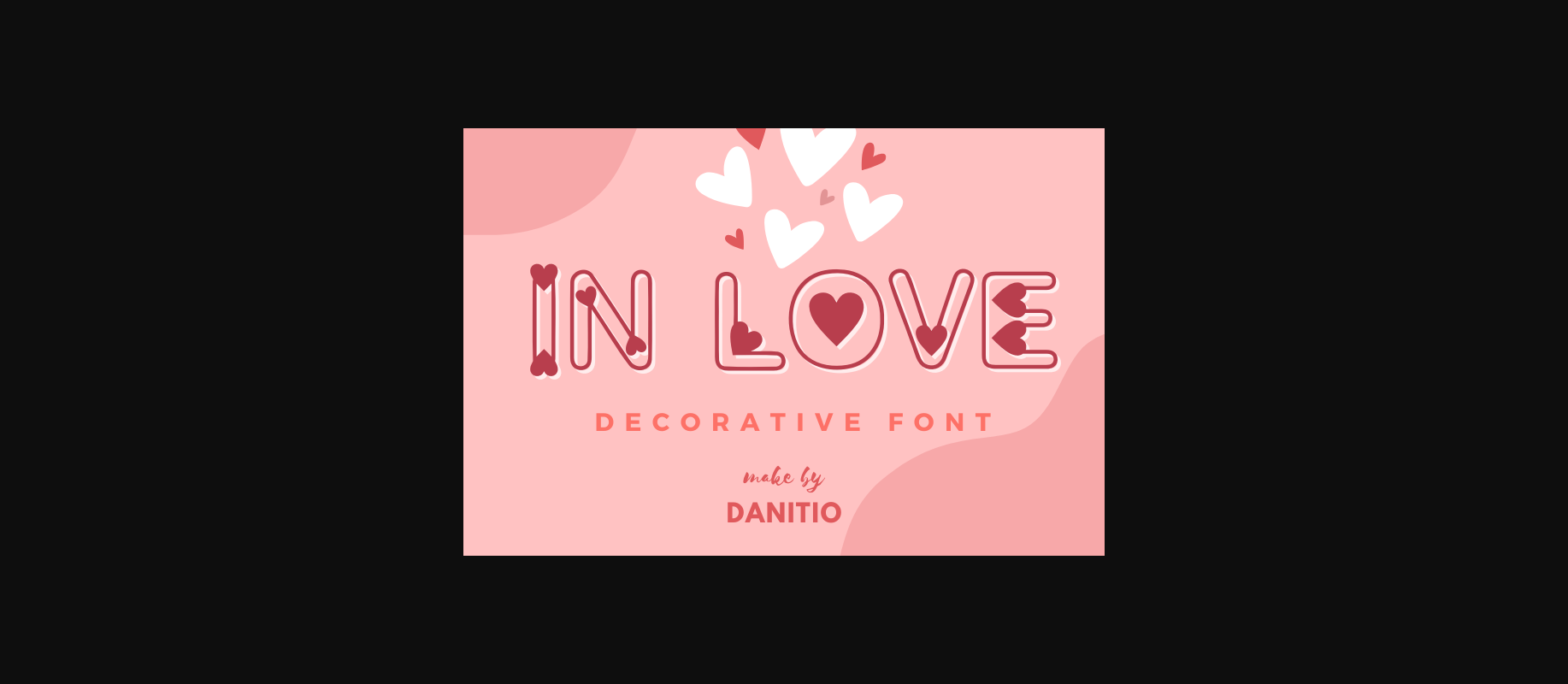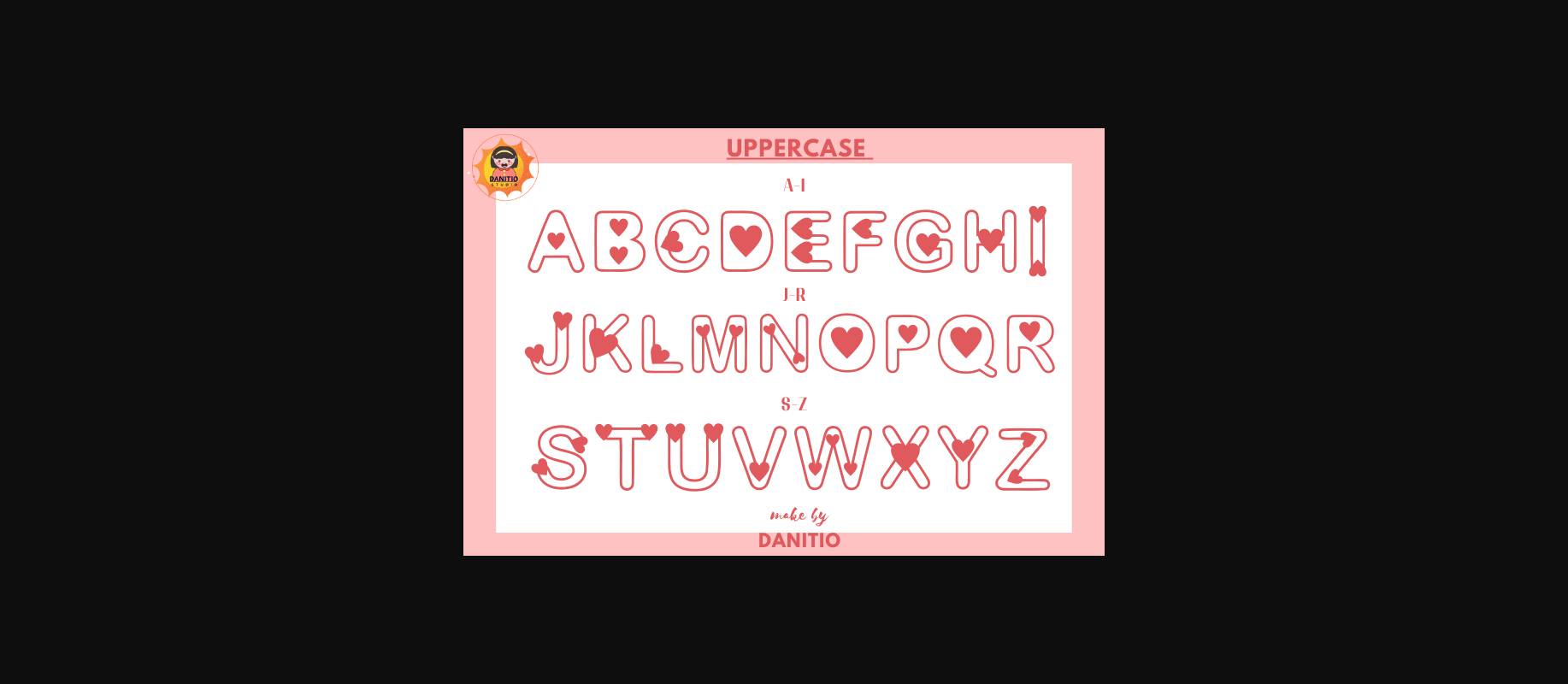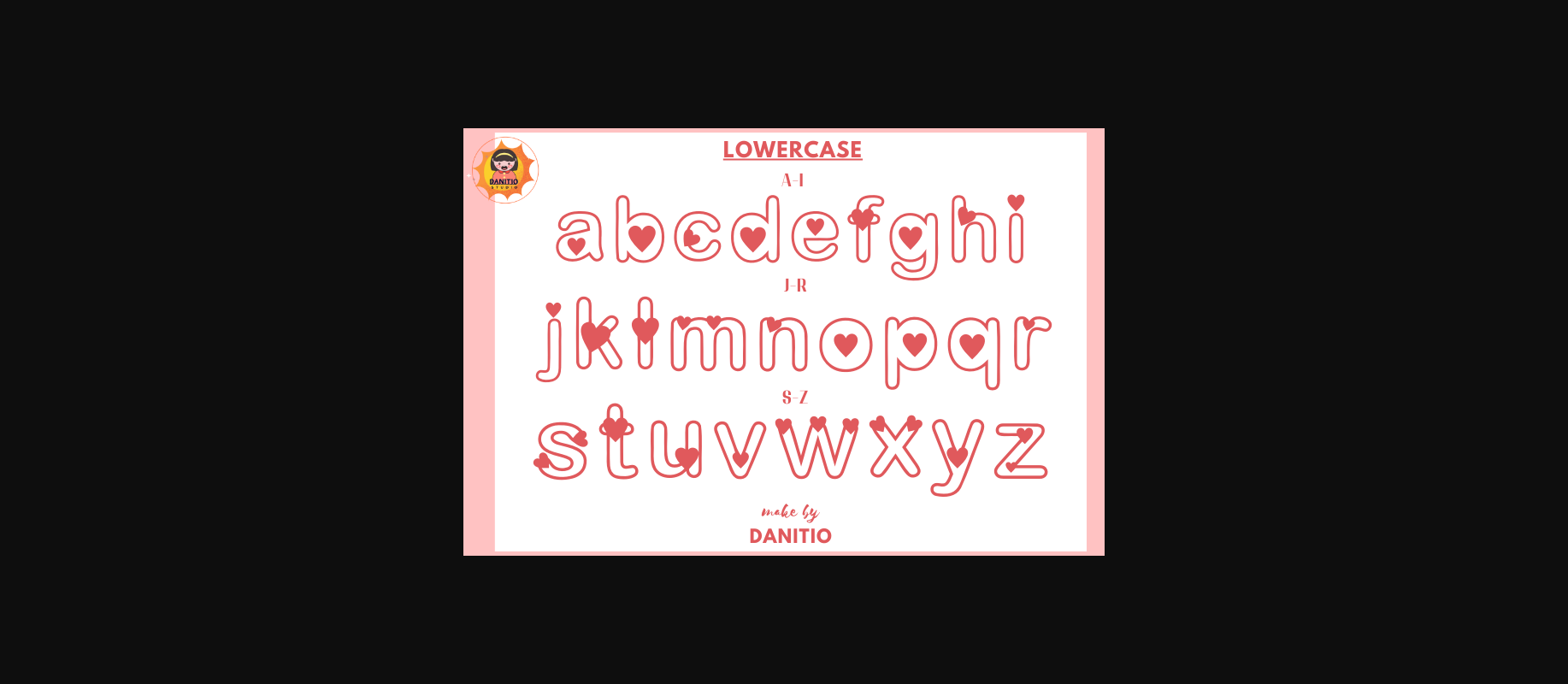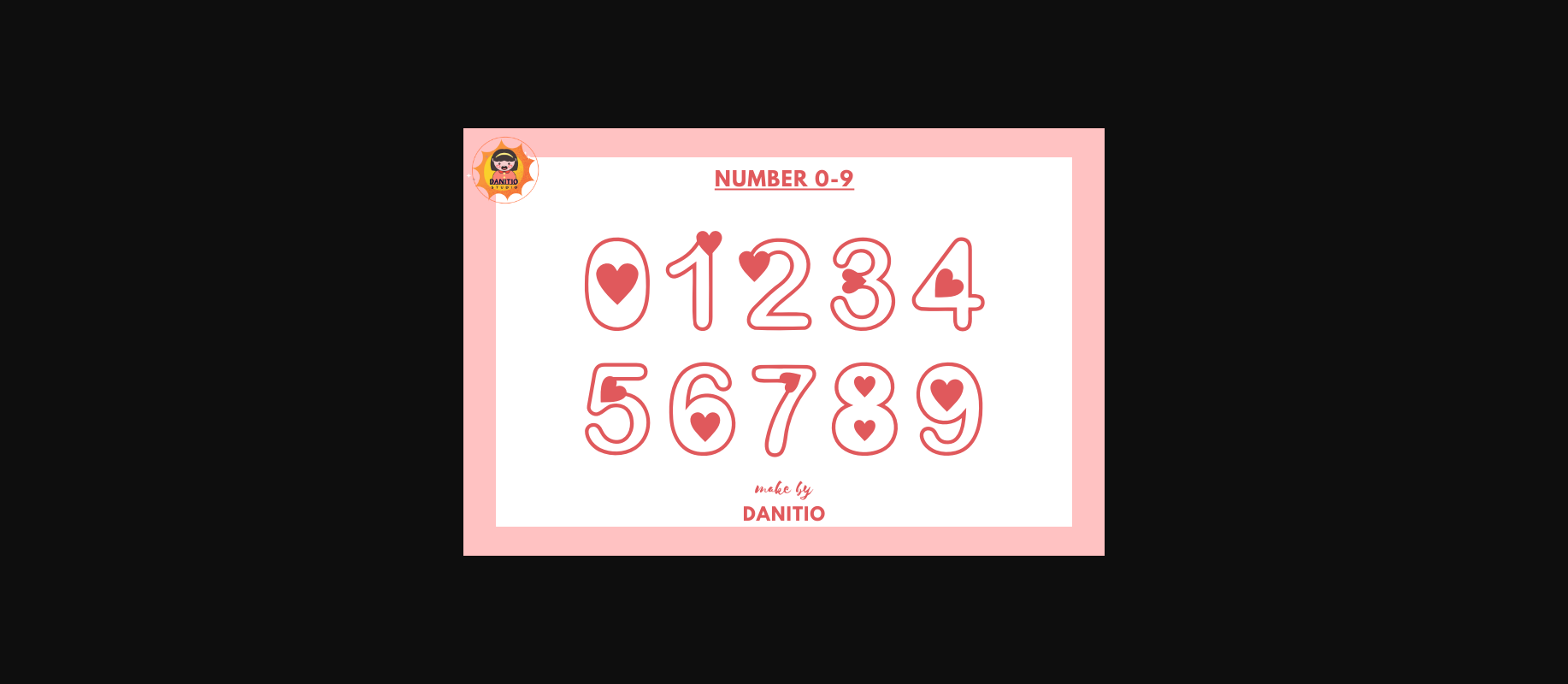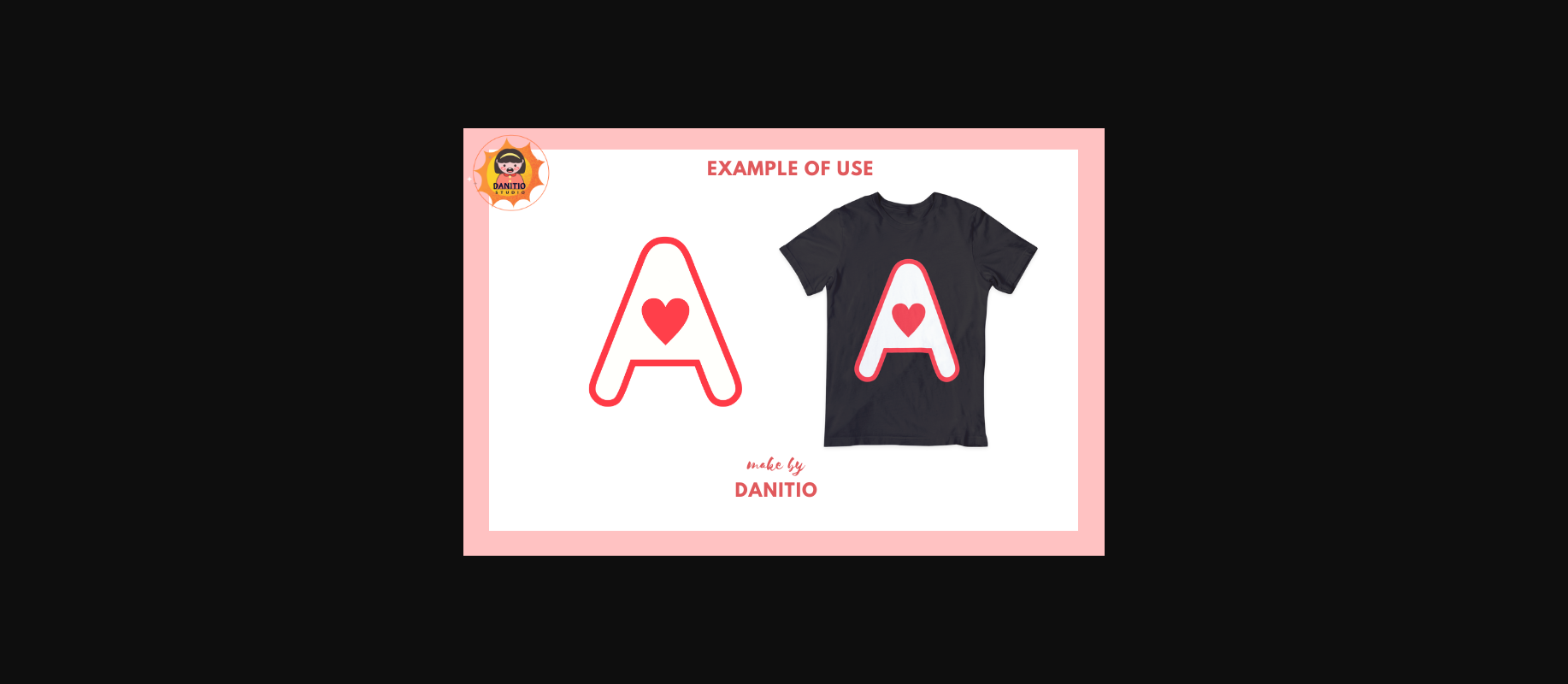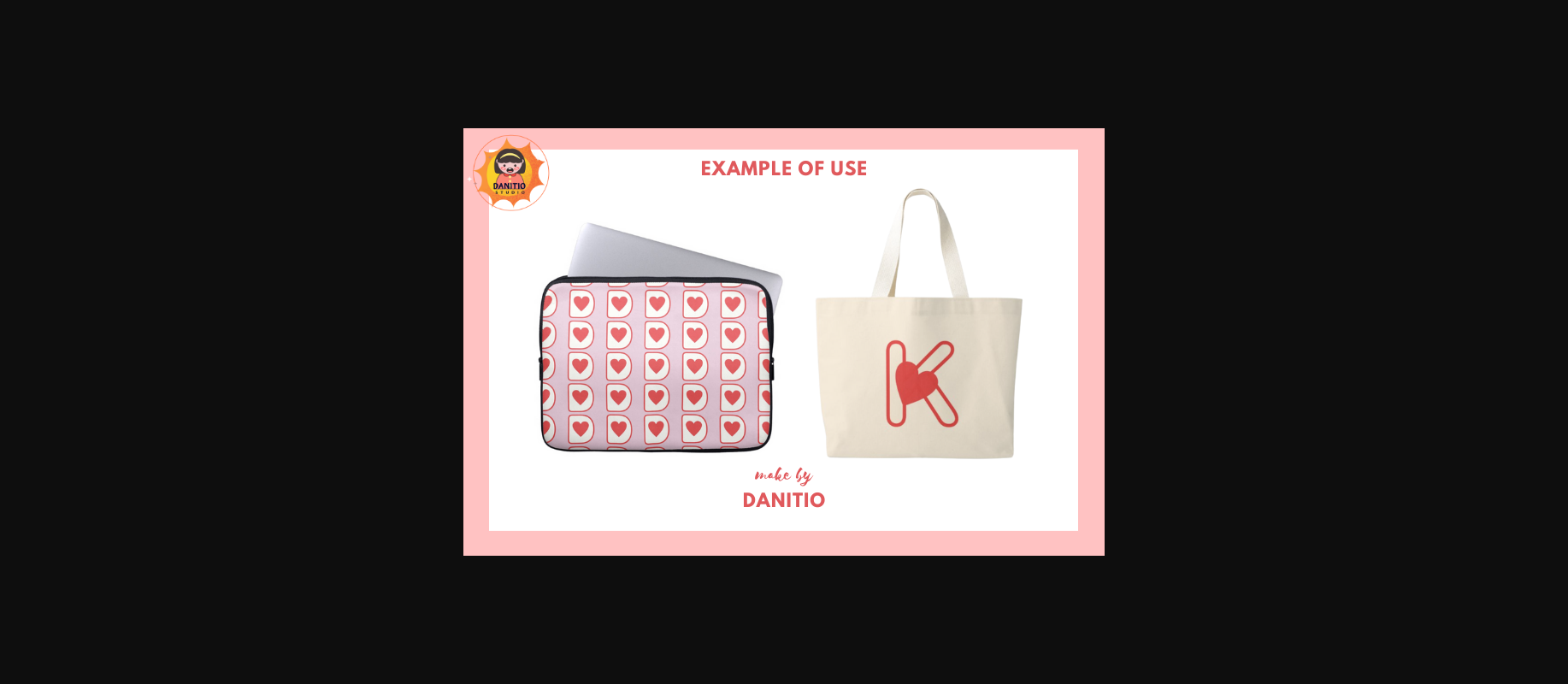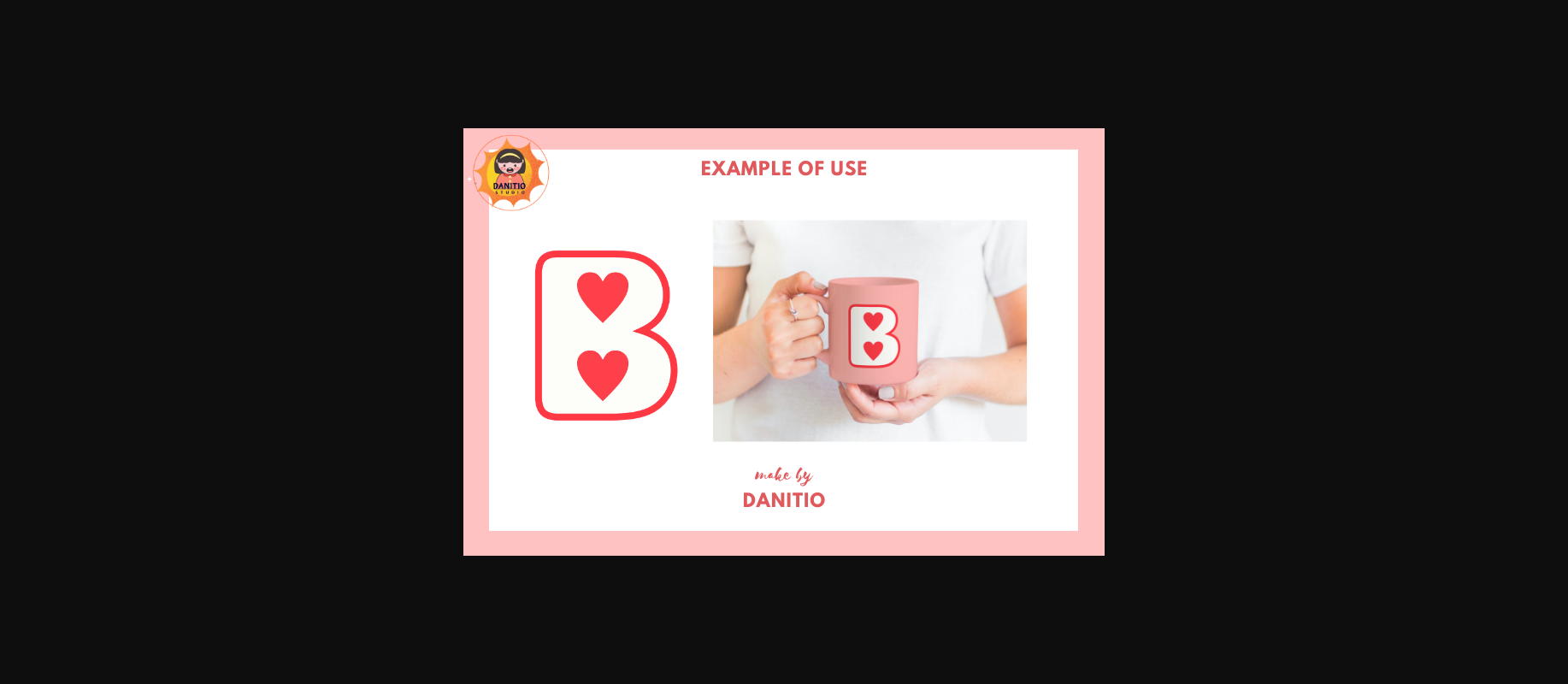
In Love Font
About In Love Font
In Love is a cute and beautiful decorative font where the letters are decorated with heart shapes. This font is ideal for adding visual flair to your projects, such as bullet journals, scrapbooks, invitations, and other designs and who want cuteness and romance.